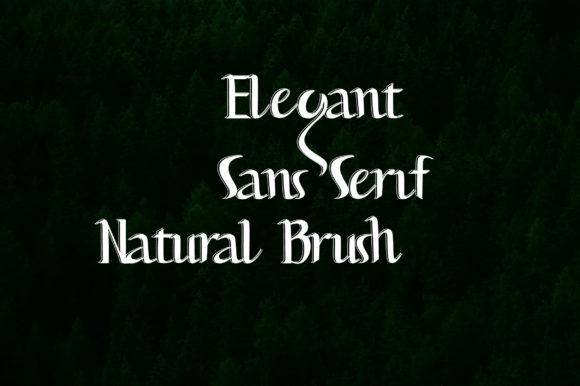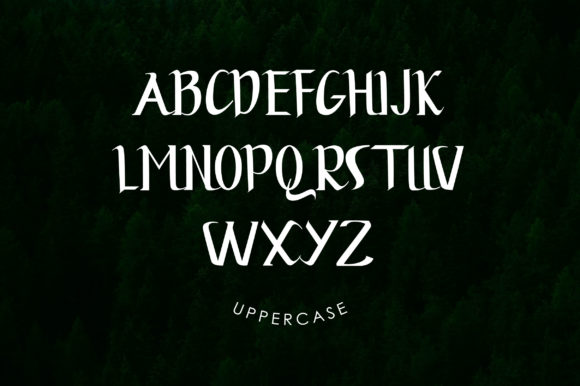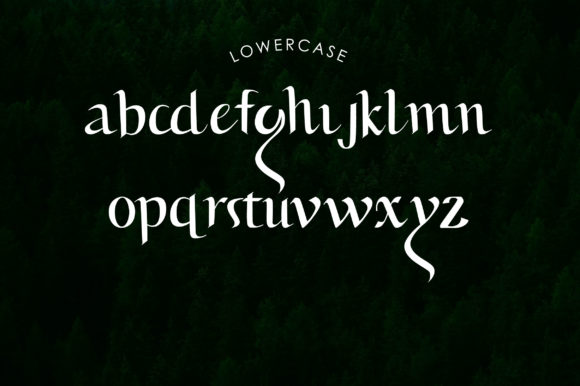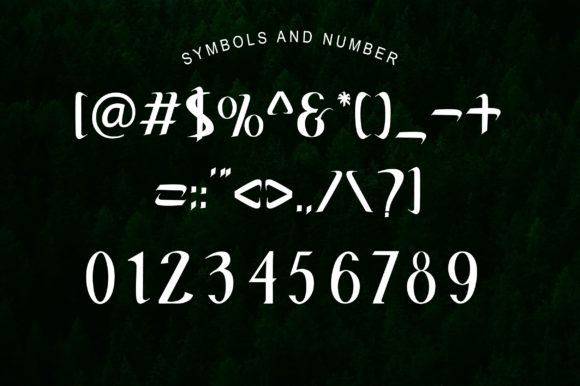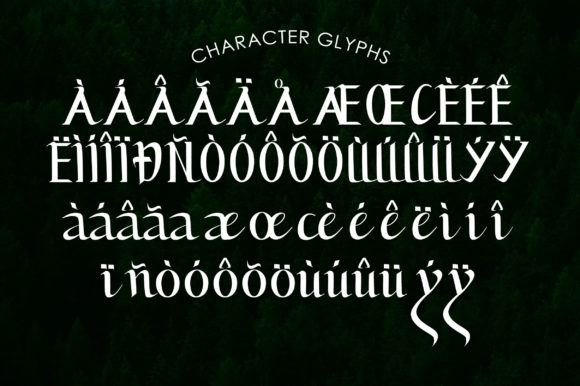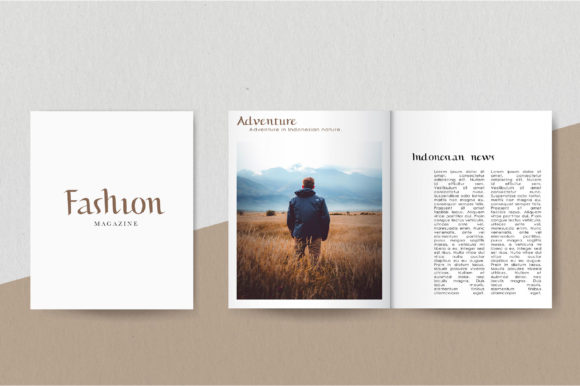
The Perfect Match for Your Creative Projects
You know that moment when you’re working on a design project, and you just can’t seem to find the right font to bring it all together? The perfect typography can make all the difference between a design that’s just okay and one that truly stands out. That’s where the Asypa Font comes in – a modern display font that’s designed to be both stylish and readable.
With its smooth curves and bold lines, the Asypa Font is perfect for fashion branding, editorial designs, or any project where you want to add a touch of sophistication and elegance. Whether you’re a seasoned designer or just starting out, adding the Asypa Font to your toolkit is a great way to take your designs to the next level.
Asypa Font Key Features
- Unique Characteristics: Asypa Font features a unique, hand-drawn style with intricate details and flourishes, making it perfect for creative and artistic applications.
- Language Support: Asypa Font supports a wide range of languages, including Latin, Cyrillic, and Greek alphabets, making it a versatile choice for multilingual projects.
- Font Weight: Asypa Font is available in multiple font weights, including Light, Regular, Medium, Bold, and Black, allowing users to customize the font’s appearance to suit their needs.
Asypa Font Review
Asypa Font is an interesting typeface with some unique features that can be beneficial for specific design projects. ✨ One of the things that stands out about Asypa is its cursive, handwritten feel, which makes it perfect for titles, headings, and other text elements where you want to add a touch of elegance and sophistication. ✨ The font also comes in a range of weights, from light to bold, which gives you a lot of flexibility in terms of how you use it.
However, there are also some limitations to consider. ⚠️ One of the main issues is that Asypa can be a bit difficult to read at smaller font sizes, especially in body text. This can make it challenging to use the font in situations where you need to convey a lot of information. ⚠️ Additionally, the font’s cursive style can sometimes be a bit too playful or whimsical, which may not be suitable for all types of projects.
- Cursive, handwritten feel
- Range of weights (light to bold)
- Perfect for titles, headings, and other text elements
- Can be used in a variety of design projects (e.g. wedding invitations, branding, packaging)
I would give Asypa Font a solid 3.5 out of 5 stars. While it has some great features and can be a great choice for certain projects, its limitations and potential readability issues hold it back from being a top-rated font.
The Asypa Font is perfect for:
- Handwritten-style typography.
For the best results, use the Asypa Font in conjunction with elegant and minimalist designs.